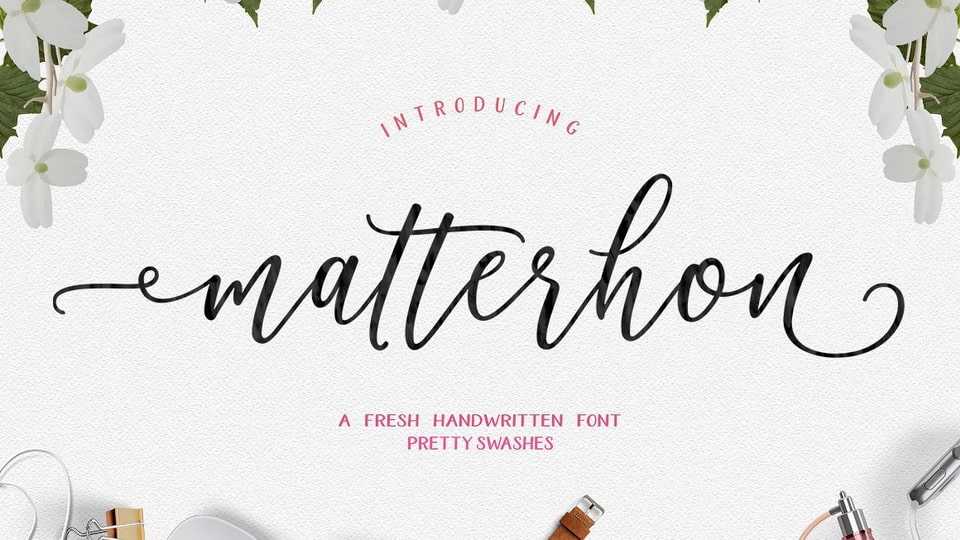
Download Matterhon font, a fresh and luxurious script with elegant characters and a dancing baseline. It is perfect for branding, logos, greeting cards, wedding stationery, quotes, etc.